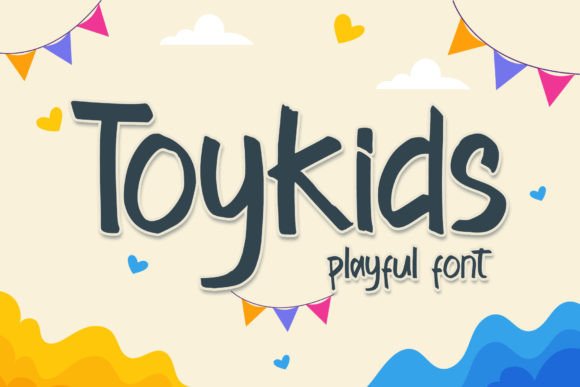
Toykids Font: A Playful Display Typeface for Campaign Visuals
It was 3 p.m. on a Tuesday—two days before the launch of a summer-themed online course series—and I was tweaking the final Instagram carousel post. The headline needed to pop in under two seconds, feel warm but not childish, and hold up across both desktop previews and vertical mobile feeds. That’s when I swapped in Toykids. Instantly, the tone shifted: energetic, approachable, and unmistakably human—not sterile, not overly trendy, just *right* for a brand speaking directly to curious adults who still love color, rhythm, and a little visual surprise.
What Toykids Actually Feels Like in Practice
Toykids is a display font with a light-hearted spirit and clean structural confidence. It’s not cartoonish or cutesy—it avoids exaggerated bounce or uneven baseline wobble. Instead, it balances rounded terminals, open counters, and generous x-height with subtle personality in its letterforms (like the friendly curve of the lowercase a or the soft tail on the y). Visually, it reads as modern, inclusive, and quietly confident—ideal for brands that want to signal warmth without sacrificing polish.
In campaign use, Toykids works best where you need immediate emotional resonance: YouTube thumbnails (“New Course Live!”), Pinterest pins (“5-Minute Creative Warm-Ups”), Reels covers (“Before & After Your First Module”), and email banners (“Your Spot Is Reserved”). It’s built for impact at scale—whether sized large over a lifestyle photo or set tightly as a label inside a branded template pack.
Where It Shines—and Where to Pause
On mobile previews and fast-scrolling feeds, Toykids holds clarity exceptionally well. Its high legibility comes from strong contrast between thick and thin strokes, consistent spacing, and no tight kerning traps. I’ve used it successfully on dark backgrounds (with slight letter-spacing adjustment) and light overlays—just avoid placing it over busy textures or low-contrast gradients unless you add a subtle drop shadow or stroke.
It’s strongest for short, action-oriented text: headlines, callouts (“Early Access”), labels (“Summer Series”), quote graphics (“You’re more ready than you think”), and campaign-specific identifiers (“Week 3 Challenge”). What it’s not designed for: body copy, dense pricing tables, legal disclaimers, or formal investor decks. Its voice is inherently expressive—not neutral—so context matters. If your campaign leans into sincerity over playfulness, or targets highly regulated industries, lean toward a versatile sans serif instead.
Real Pairings That Work in the Wild
In every campaign I’ve used Toykids for—from webinar banners to digital ad sets—I pair it with one reliable anchor: a clean, neutral sans serif like Inter, Poppins, or Montserrat. That combo gives me hierarchy without tension: Toykids for the hook, the sans for the detail. For editorial-style course landing pages, I’ve layered it over a quiet serif (e.g., Lora or EB Garamond) for contrast that feels intentional, not chaotic.
Avoid pairing it with other display fonts or heavy scripts unless you’re designing a very specific mood-driven asset (like a limited-edition merch drop). And while Toykids has a joyful core, it doesn’t need “fun” companions—it gains strength from restraint. Think of it like a bright accent wall in a calm room: it stands out because everything else supports it, not competes with it.
I also test it in real environments: pasting it into a Figma prototype with auto-layout constraints, previewing a thumbnail in Instagram’s native app, and checking how it renders in Gmail vs. Apple Mail. Small inconsistencies happen—especially with custom ligatures or alternate glyphs—so I keep a fallback sans serif ready in my style guide.
Why It Fits So Naturally Into Today’s Visual Flow
Scrolling through feeds, we don’t read—we scan, then feel, then decide. Toykids answers that behavior directly. Its shape invites attention without shouting. Its rhythm feels conversational, not corporate. And because it’s a premium display font—not a free Google Font—it carries subtle distinction: a sign that someone thought about tone, not just speed.
It’s become my go-to for campaigns where authenticity matters more than austerity: product teasers that lean into curiosity (“What’s Inside?”), workshop announcements that prioritize approachability (“No Experience Needed”), and content series built around growth, creativity, or gentle reinvention. Not because it’s “trendy,” but because it helps messages land with honesty—and that’s something no algorithm can fake.